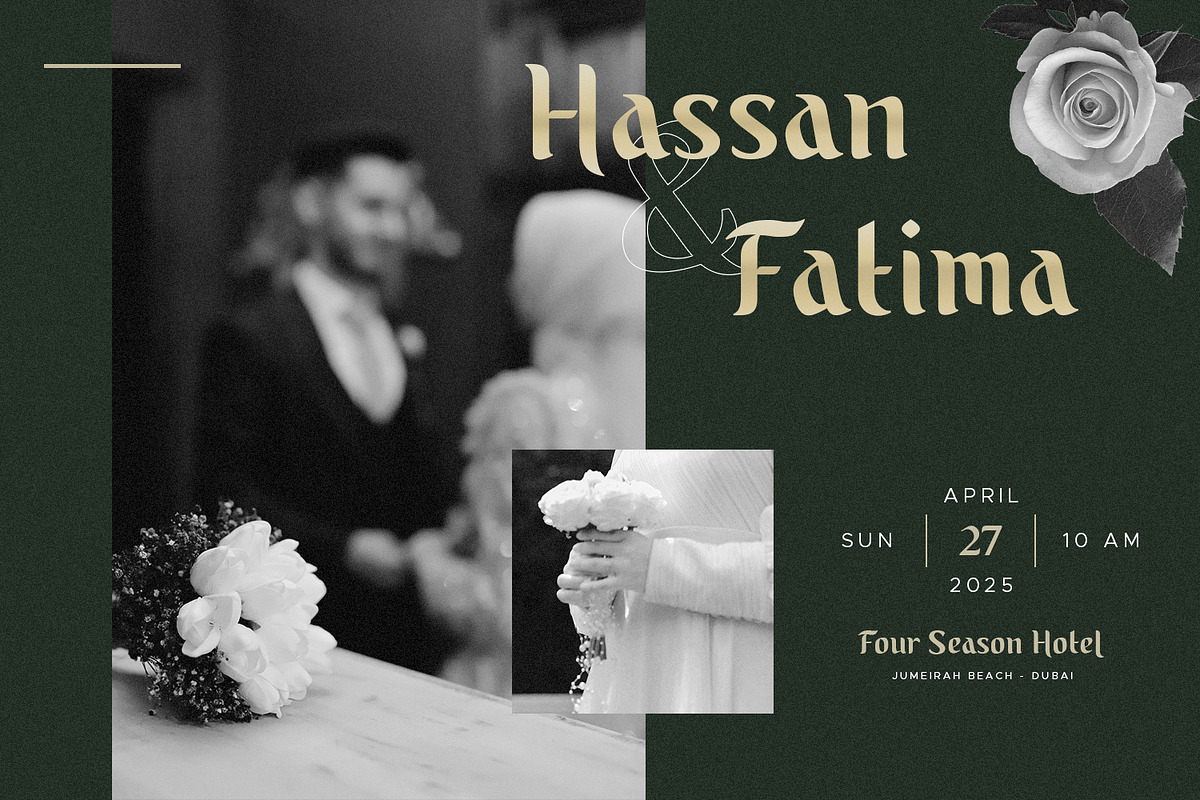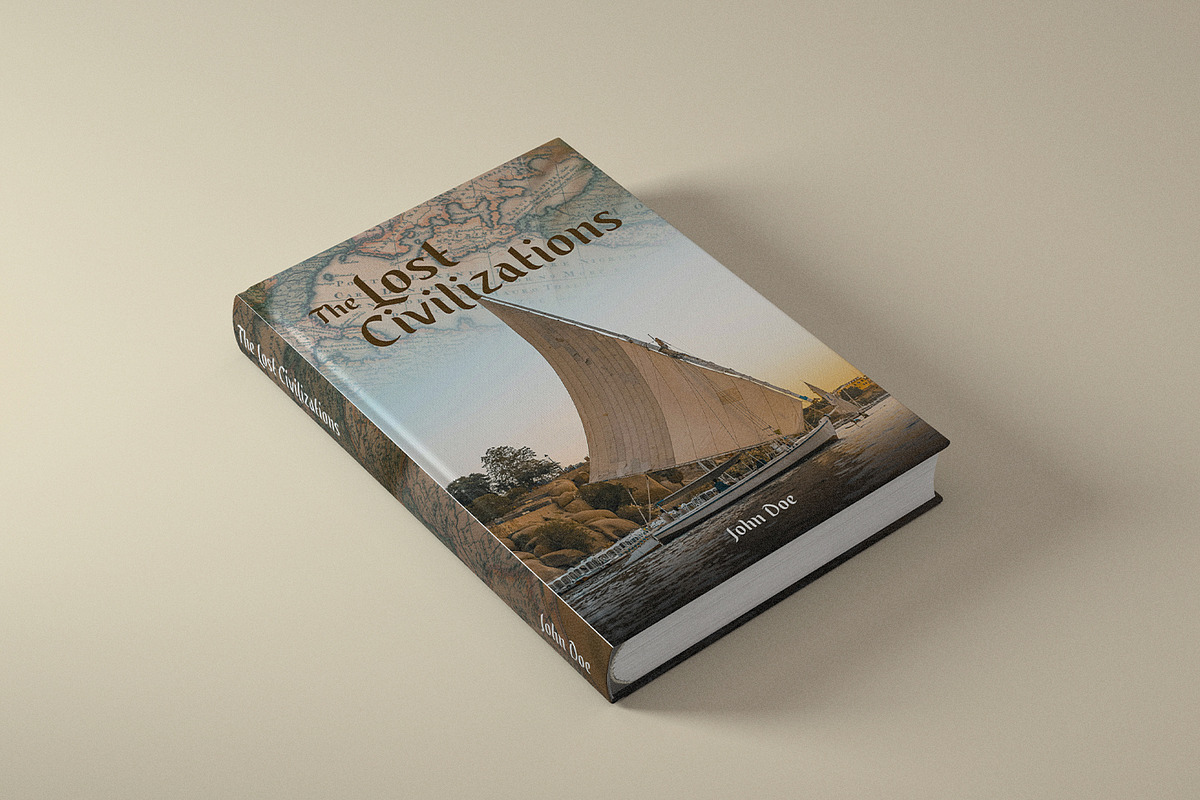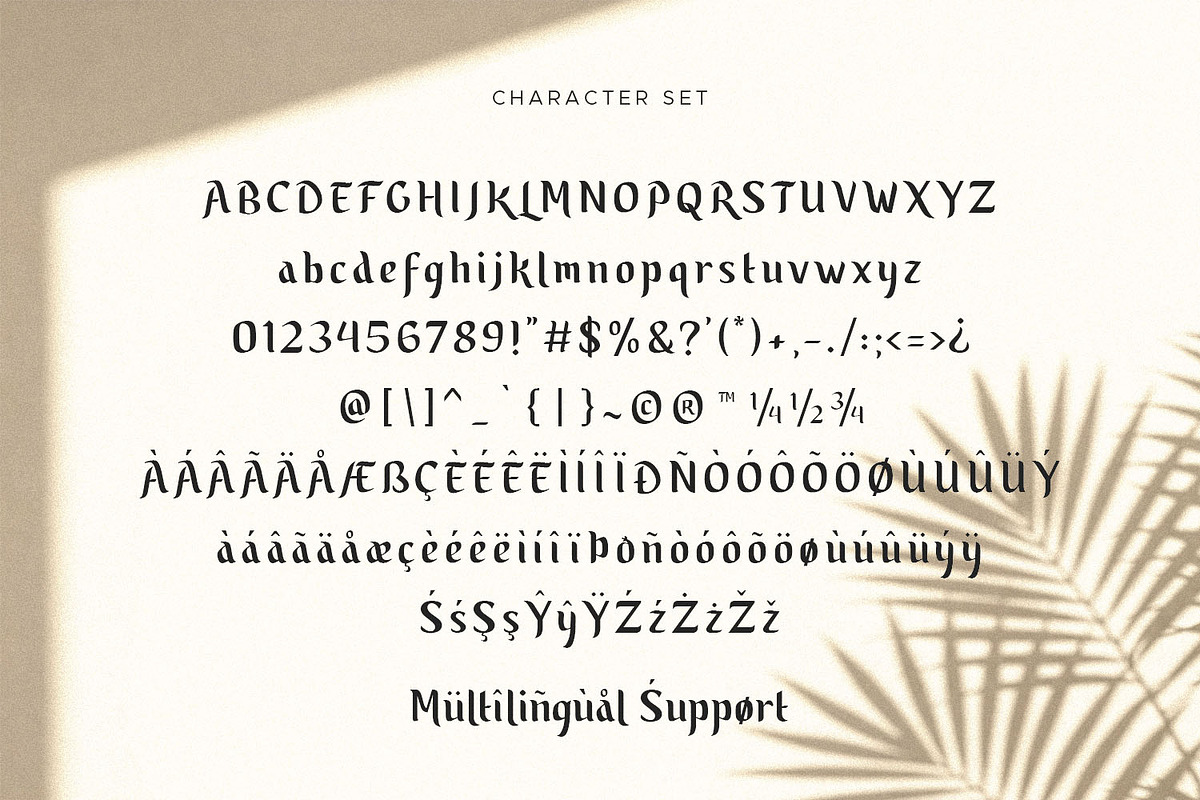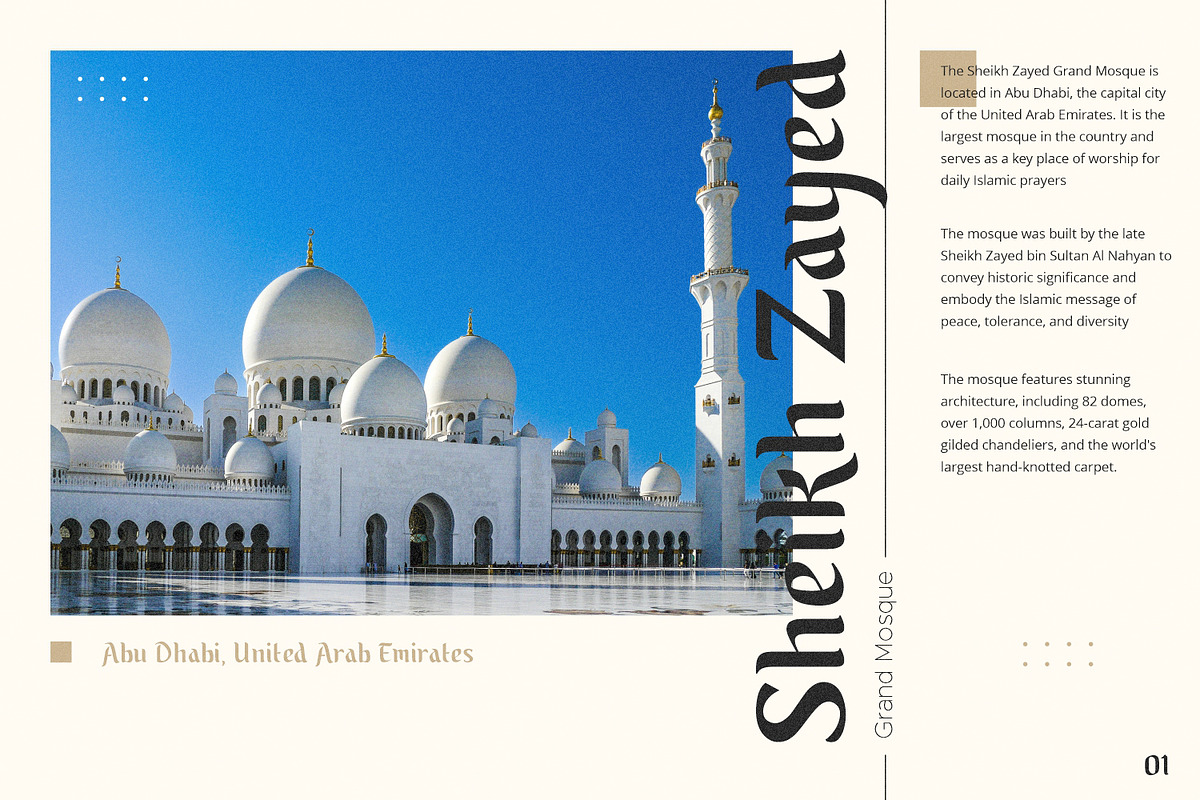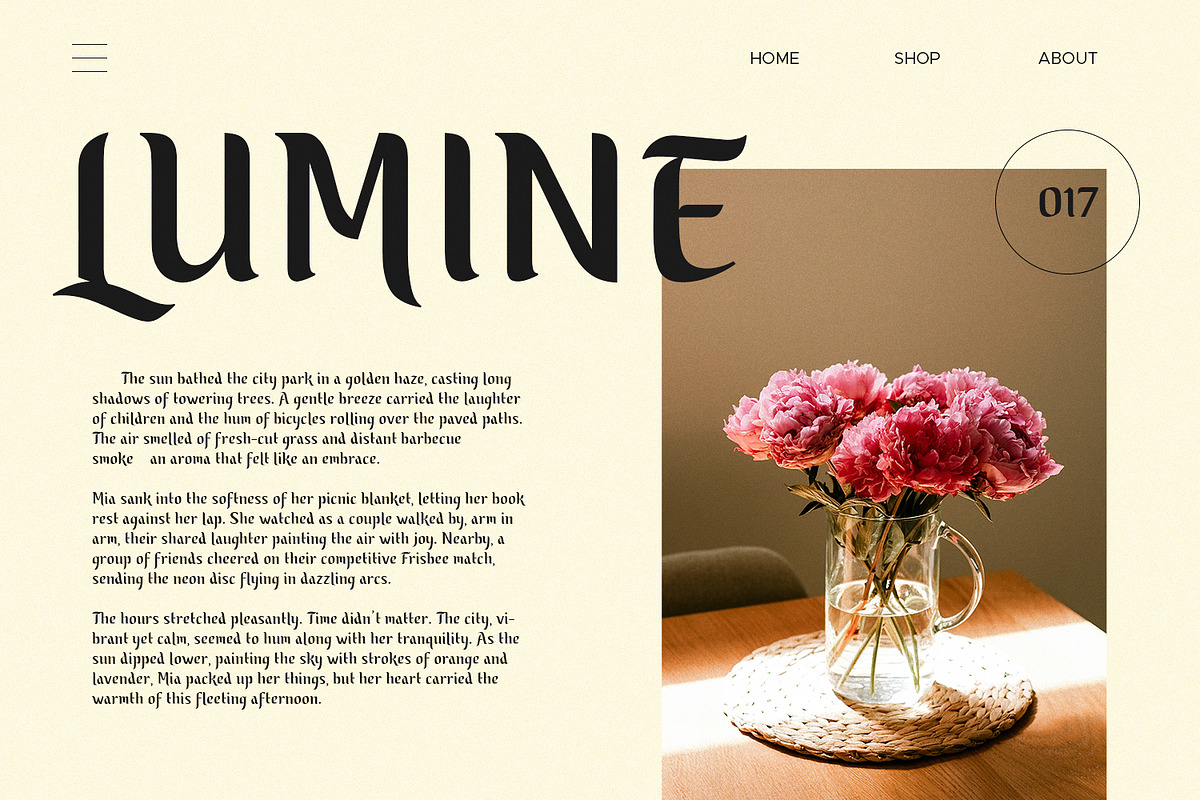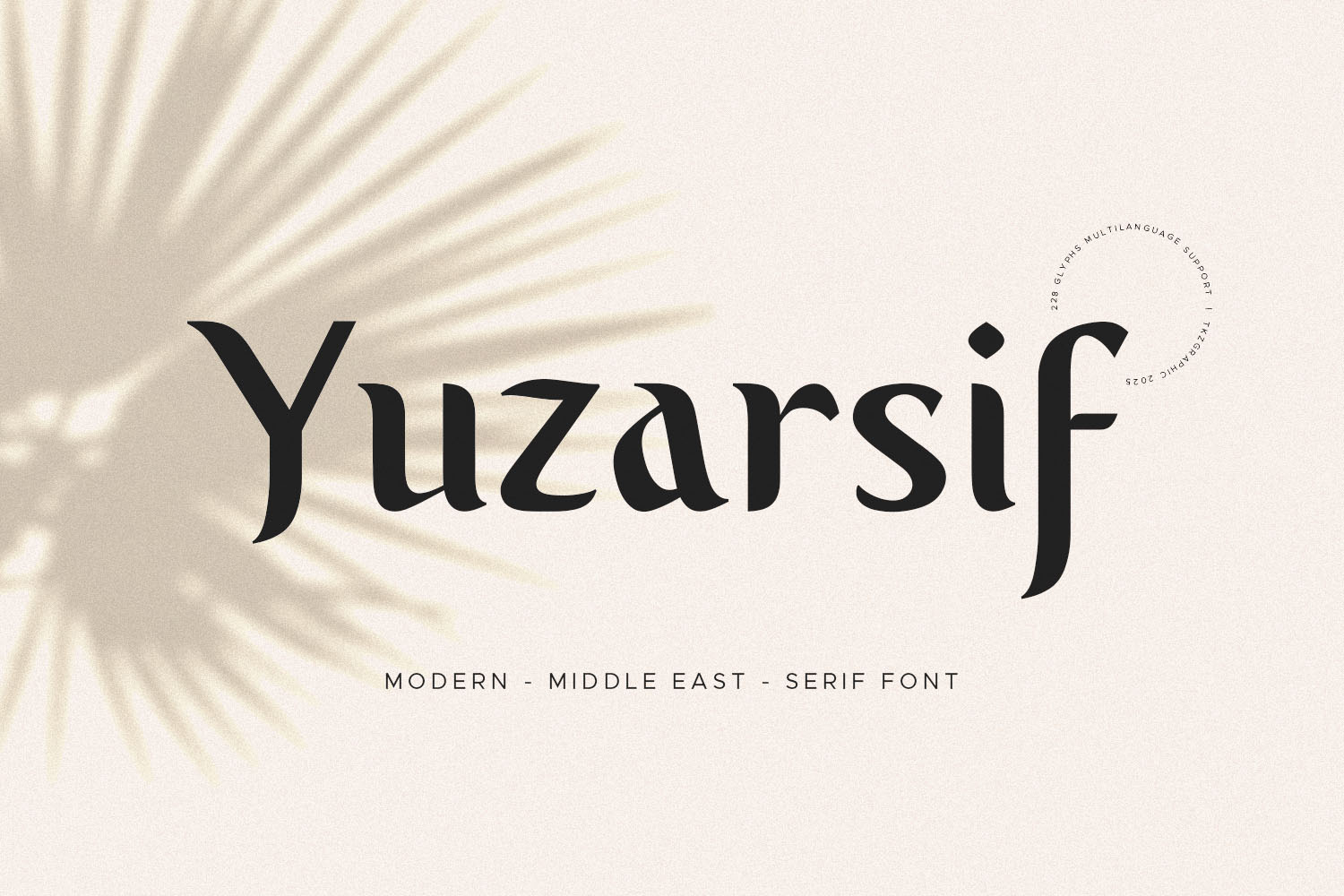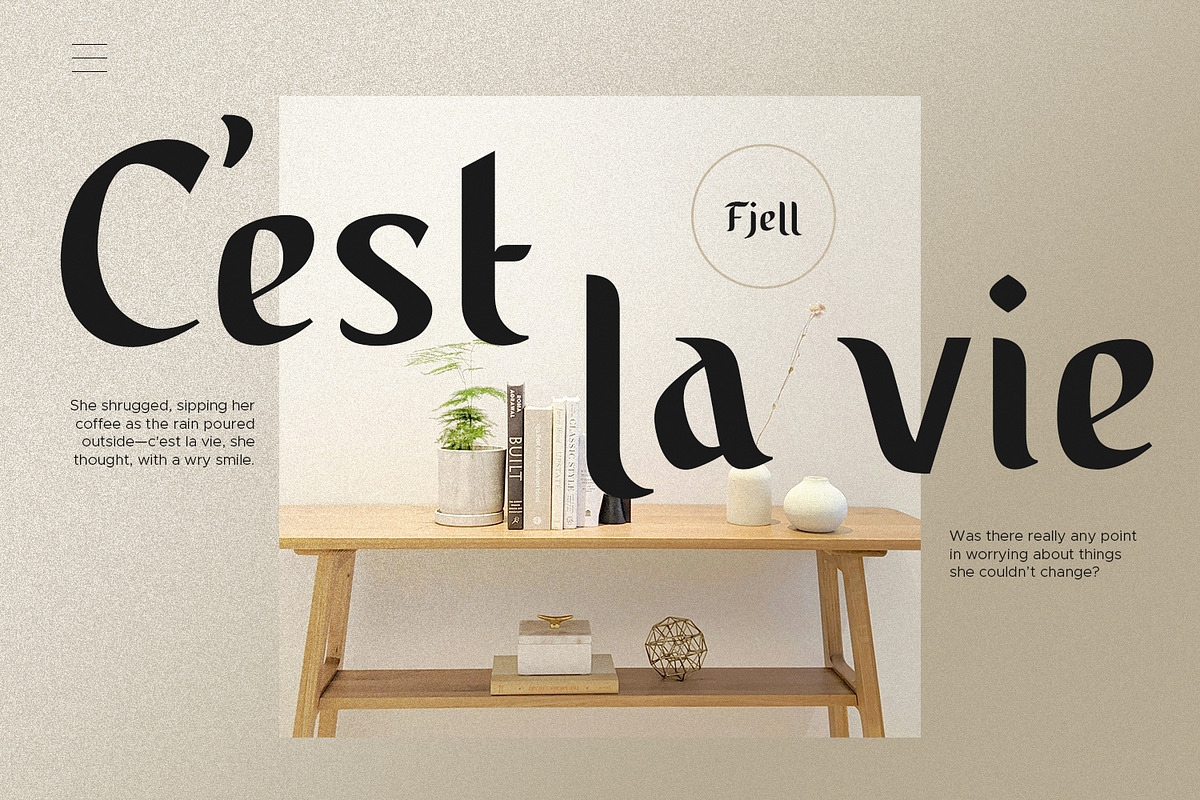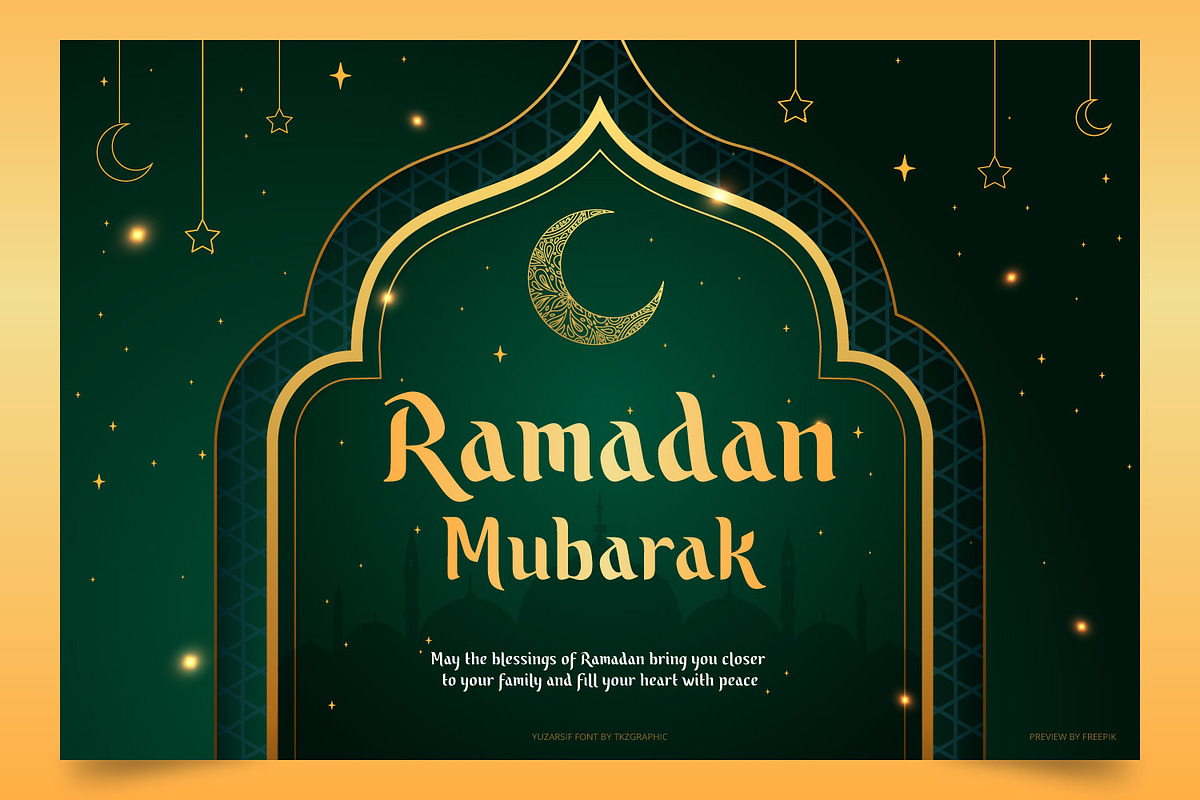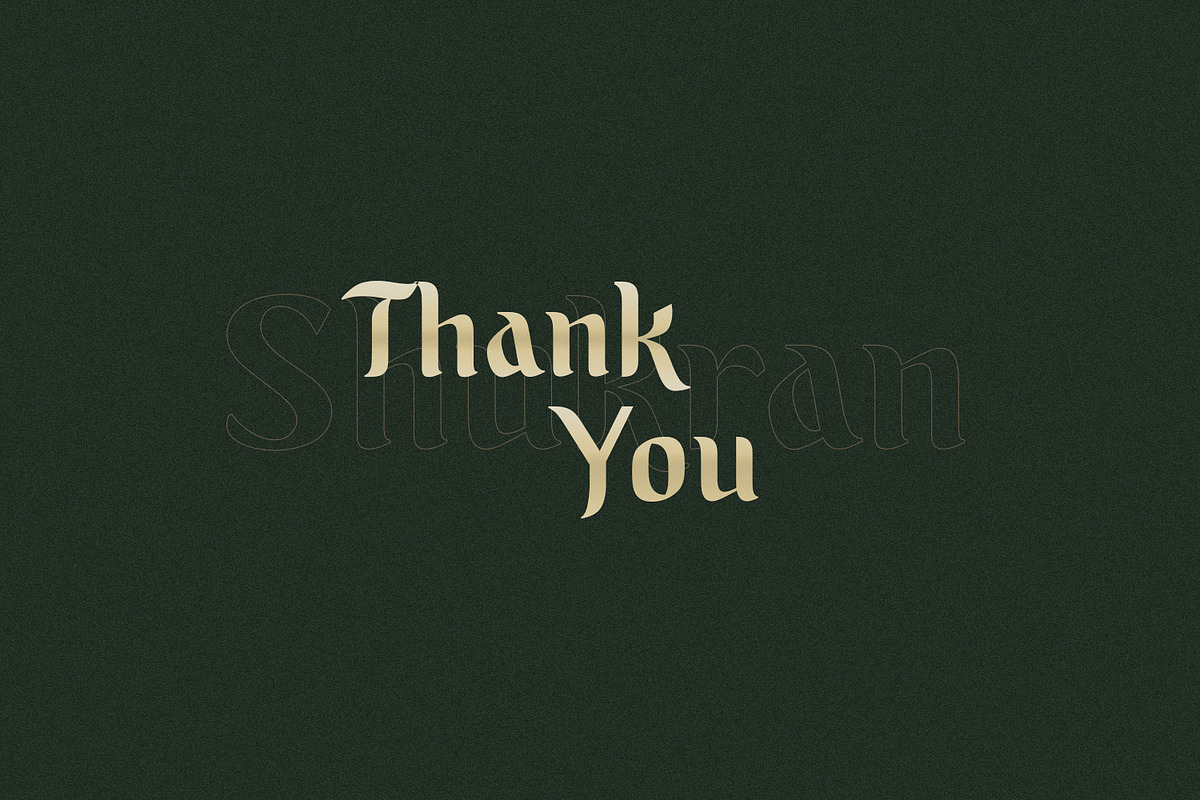
Yuzarsif - Modern Serif Font
Yuzarsif is a modern serif font that seamlessly blends classic elegance with a touch of Middle Eastern culture. This font is perfect for your creative projects such as Logotype, invitations, cards, branding, headers, letterhead, apparel, magazine, book, etc.